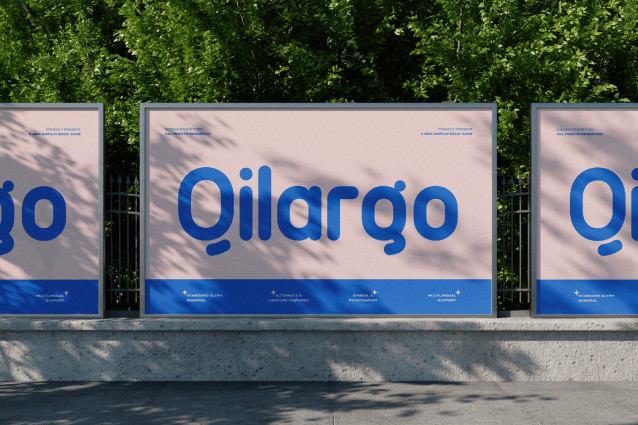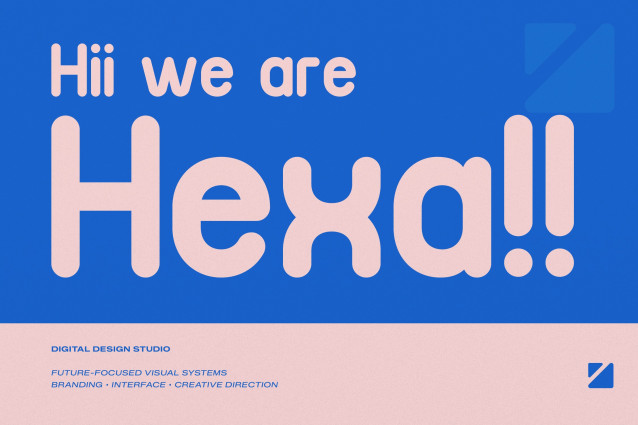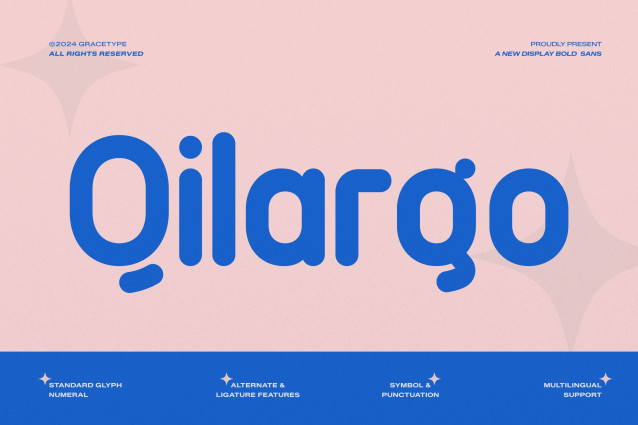
Qilargo Font
Qilargo Font | Display Bold Sans, from Gracetypestudio, suitable for any projects such as: logos, branding projects, homeware designs, product packaging, mugs, quotes, posters, shopping bags, t-shirts, book covers, name card, invitation cards, greeting cards, label, photography, watermark, special events, and all your other lovely projects that need a Sans taste.